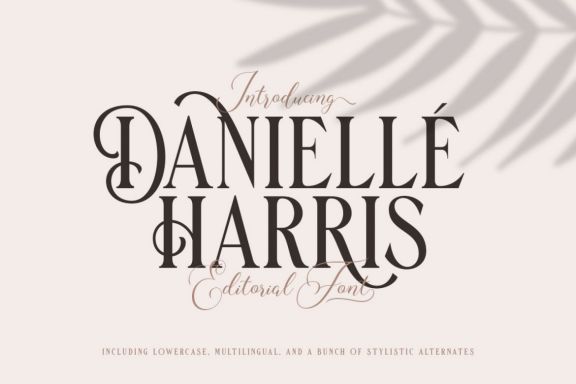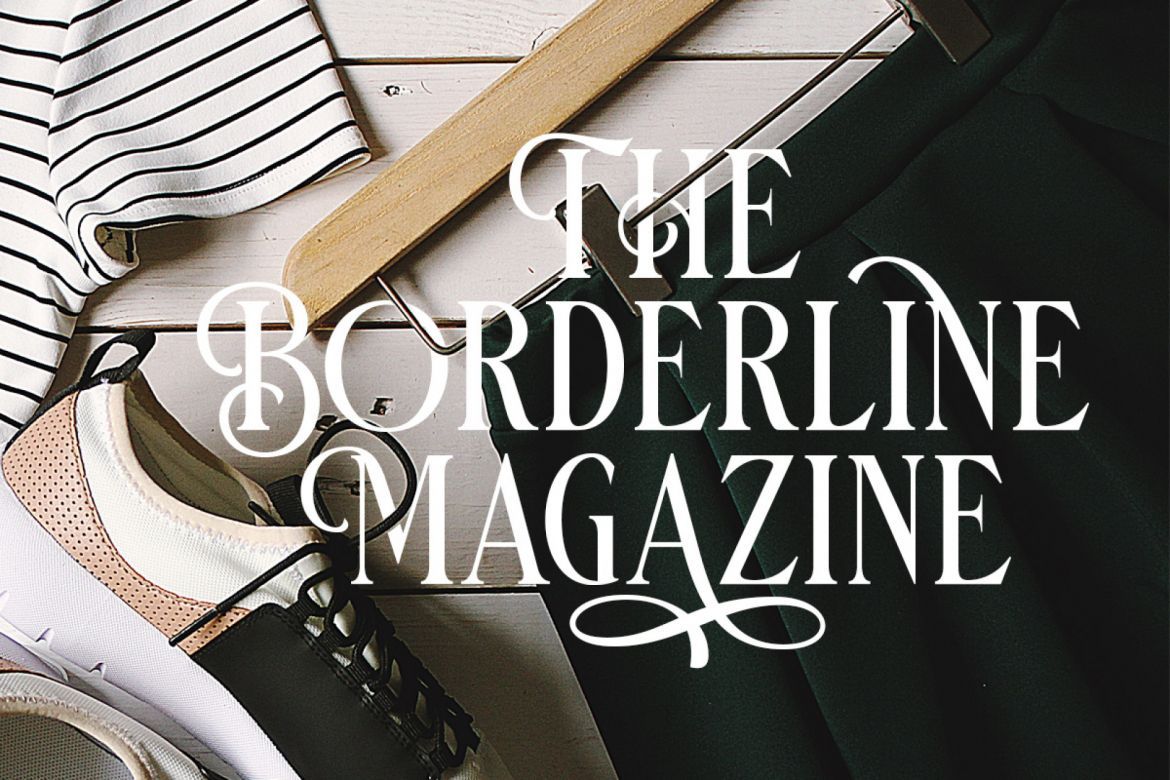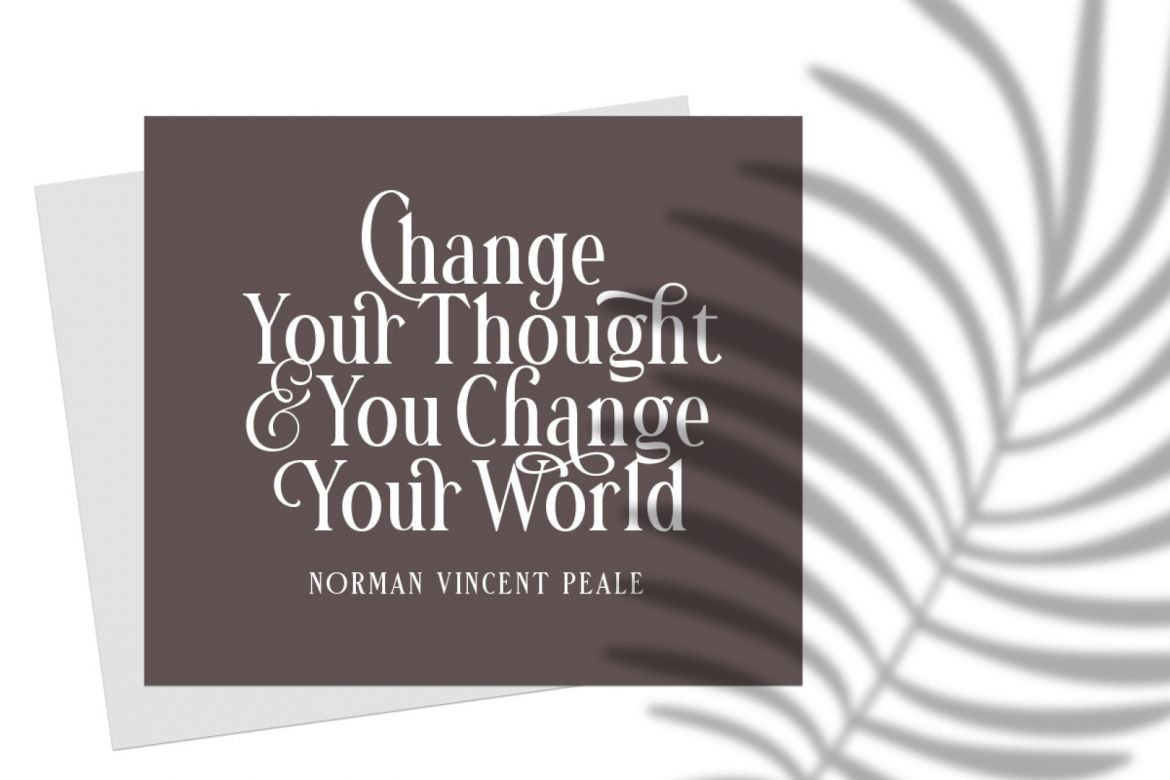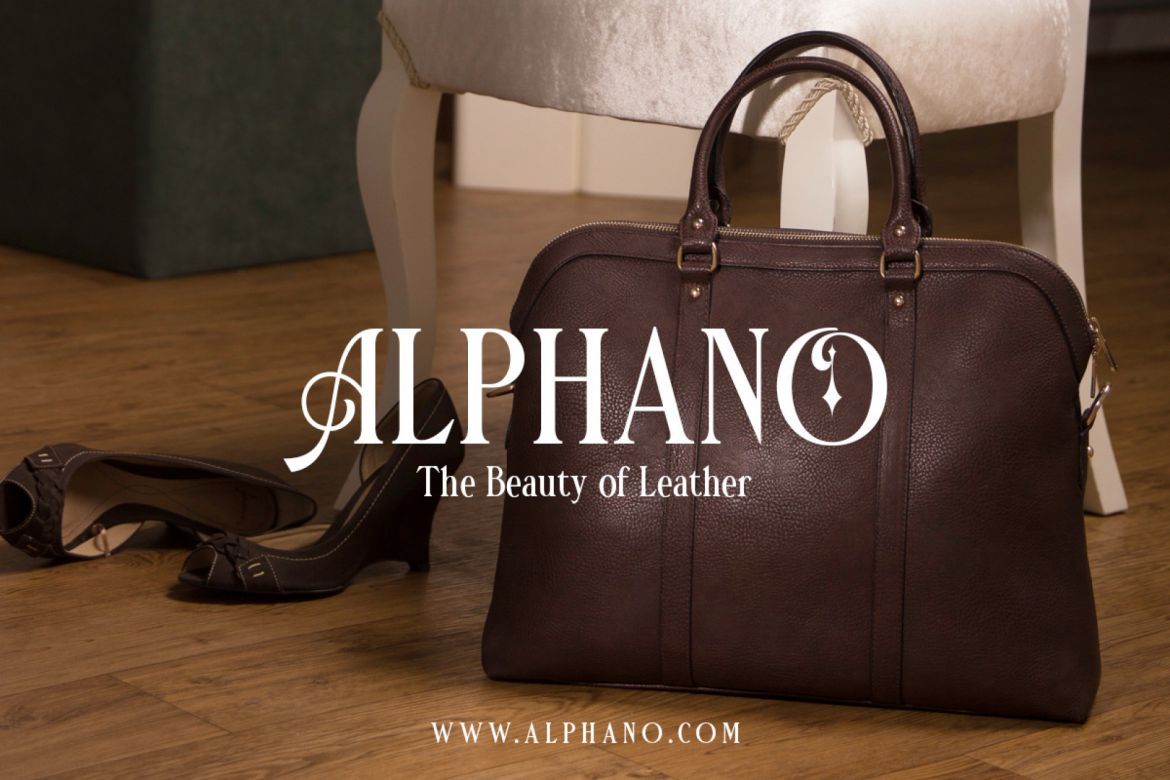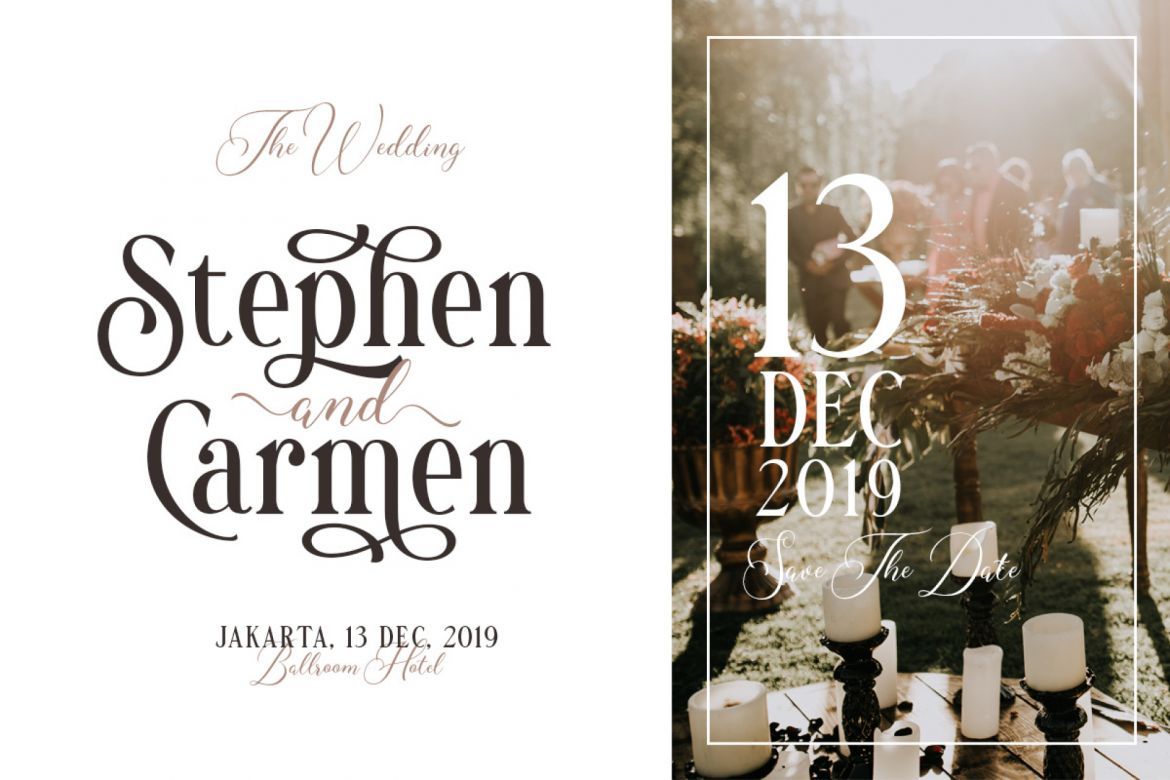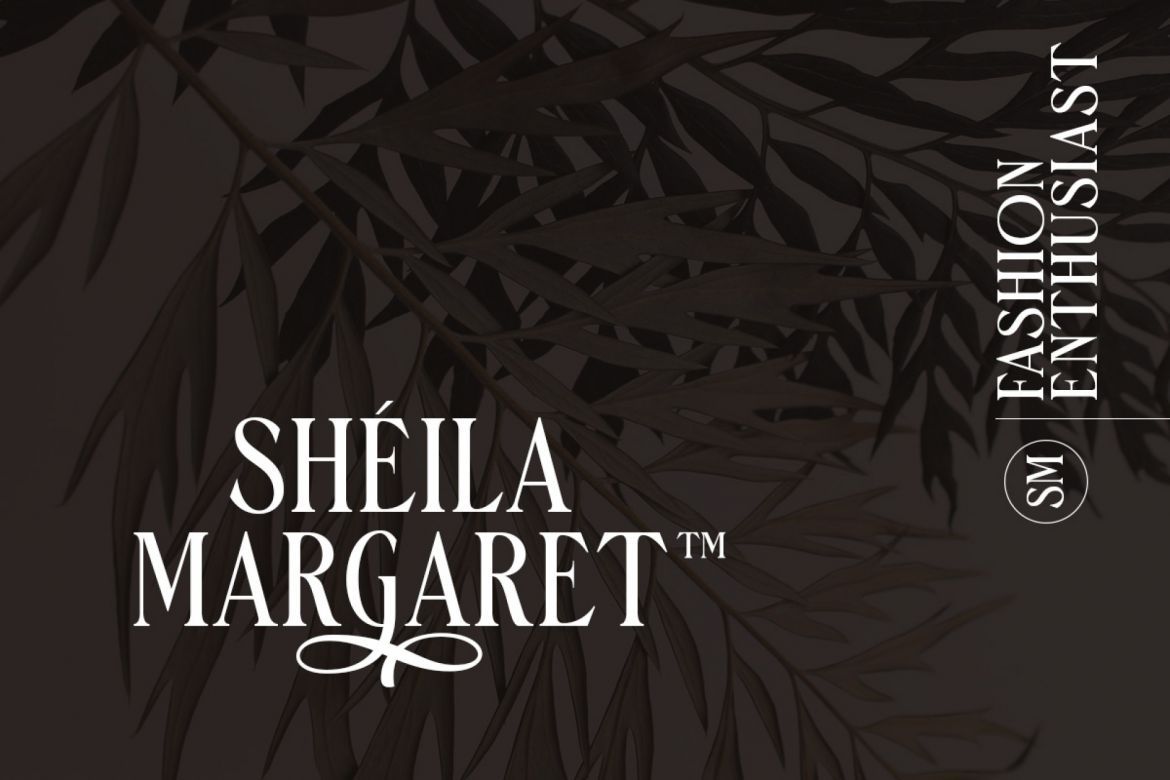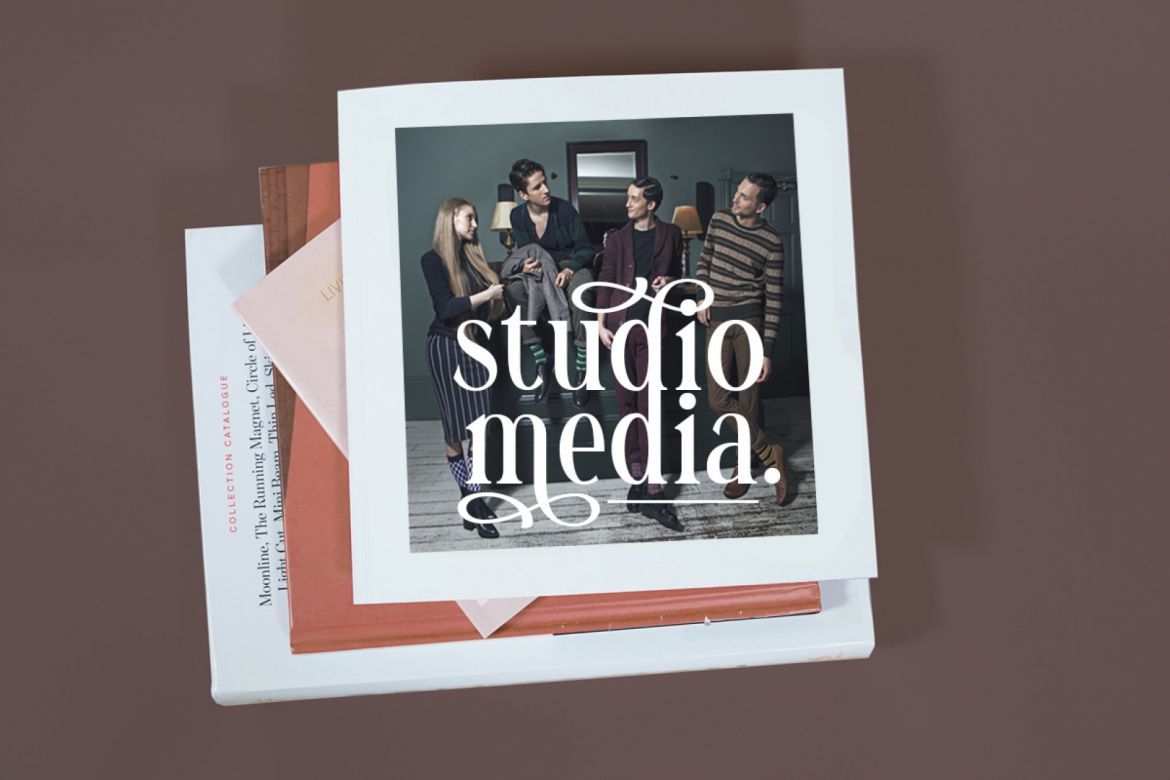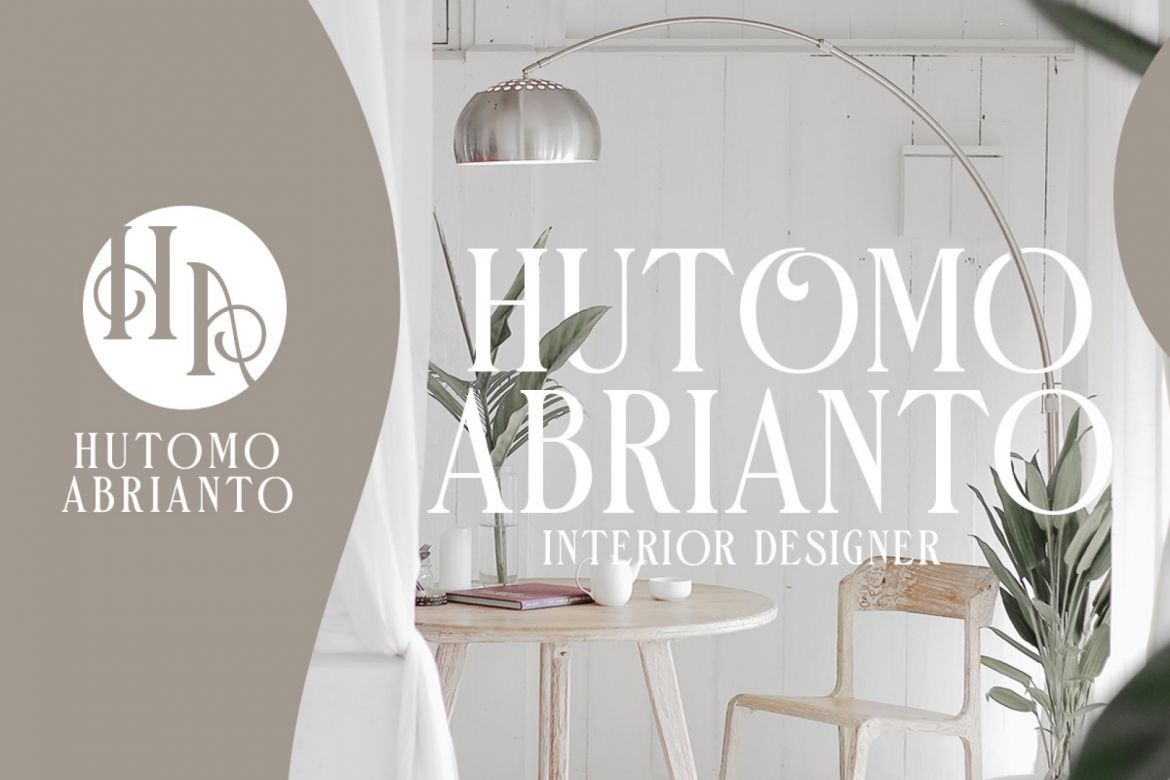
Danielle Harris - Editorial Font
• they work perfectly for those of you who need fonts for titles, logos, clothing, invitations, branding, packaging, advertisements, etc.
• this typeface is present in uppercase, lowercase letters, punctuation, symbols, numbers, substitute set styles, ligature, etc. it also supports multilingual.